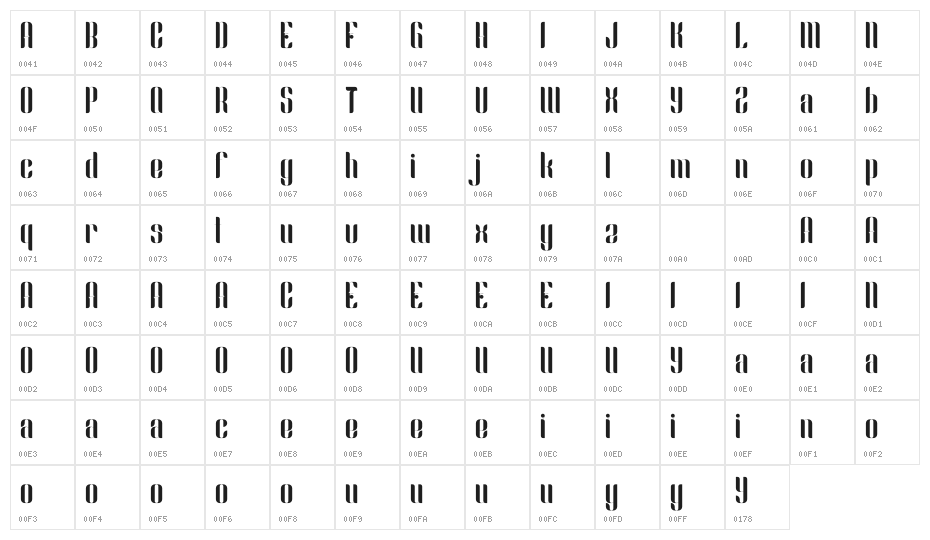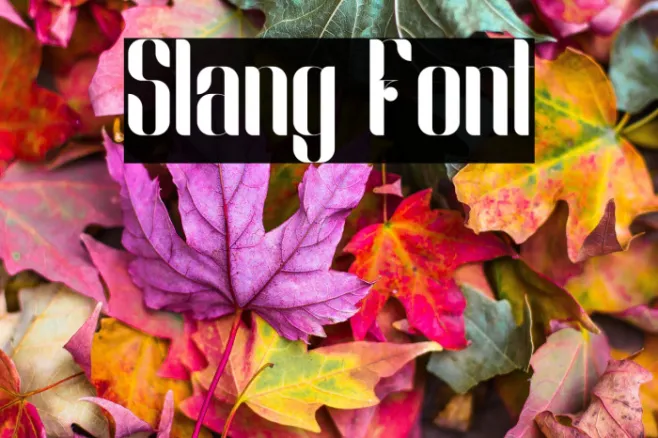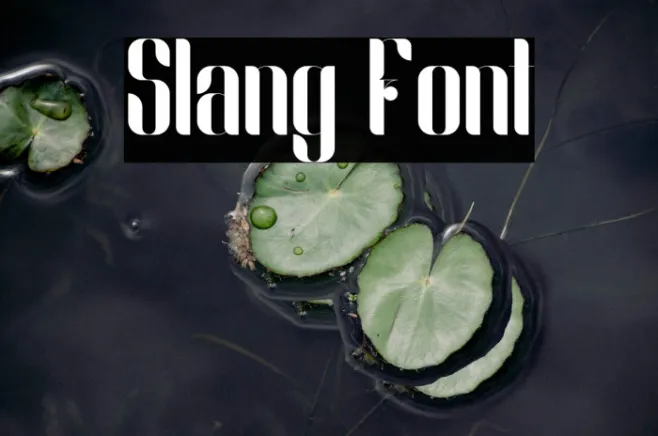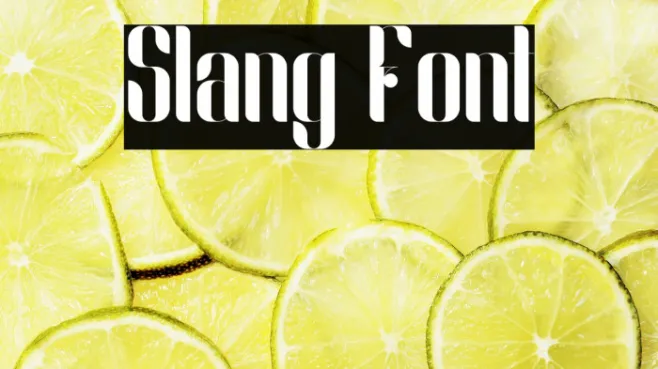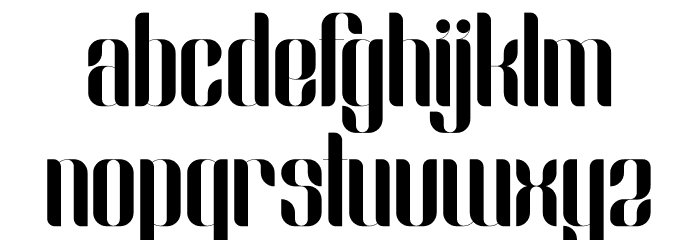
Slang Font
Slang Description
This font features a bold and modern design with high contrast between thick and thin strokes. The uppercase letters exhibit a unique blend of geometric and organic shapes, creating a striking visual impact. The lowercase letters maintain a consistent style, offering a smooth and cohesive look. The absence of numbers and special characters suggests a focus on artistic expression rather than functionality. The overall style is decorative, making it ideal for projects that require a strong visual statement.